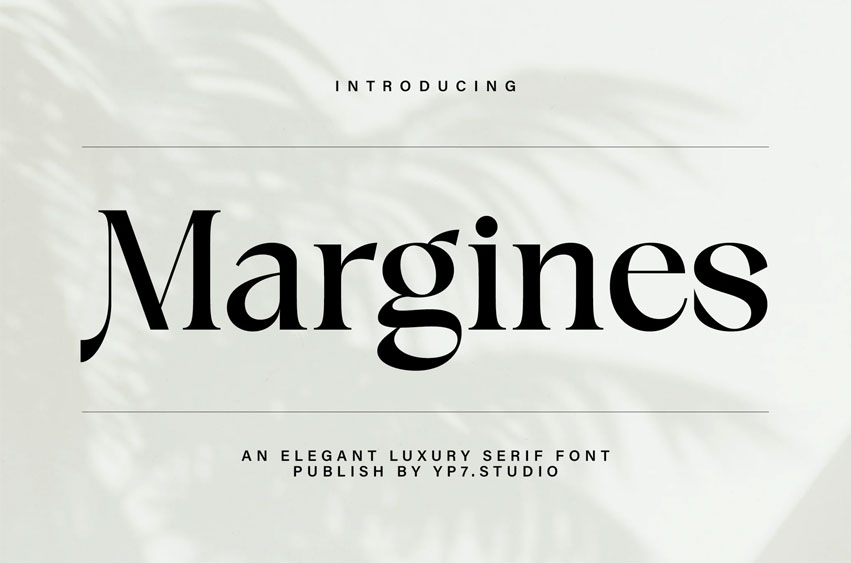
Margines Font Elegant Luxury Serif Font. This font is well-suited for a variety of contexts, such as print design, promotional materials, or magazine layouts.
Margines